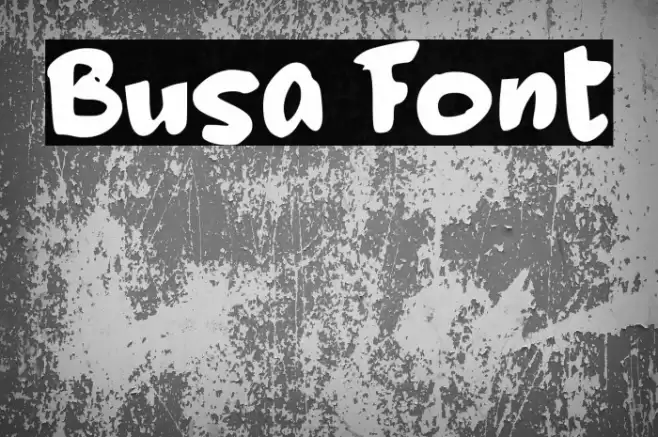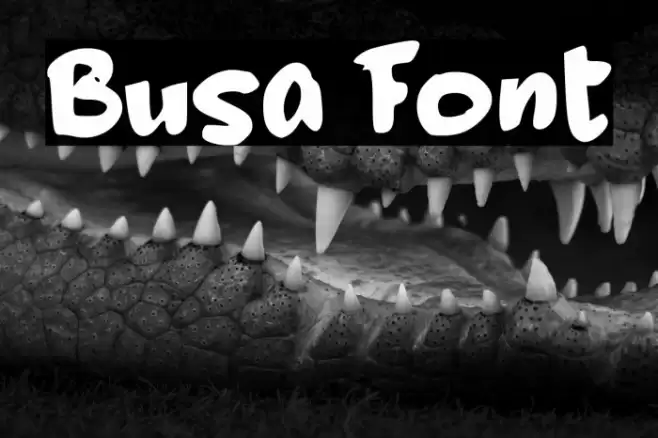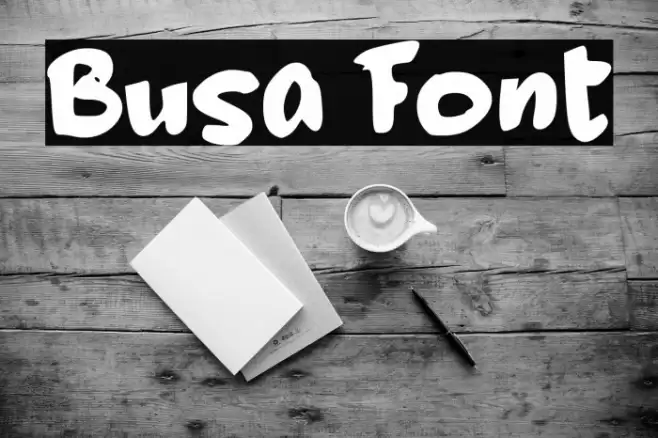
Busa Font
Busa Description
This font features a bold and playful style, characterized by its thick, rounded strokes and slightly irregular shapes. The letters have a hand-drawn appearance, giving them a casual and friendly vibe. The uppercase and lowercase letters maintain a consistent weight, contributing to a cohesive look. The numbers and special characters follow the same design principles, ensuring uniformity across all glyphs. The font's overall aesthetic is lively and energetic, making it suitable for projects that require a touch of whimsy and fun.
A bold, playful font with a hand-drawn, casual style from Uncategorized fonts.
- Font: Busa
- Proposed Projects: Ideal for children's books, playful branding, casual invitations, and creative posters.
- Overall Style: Playful